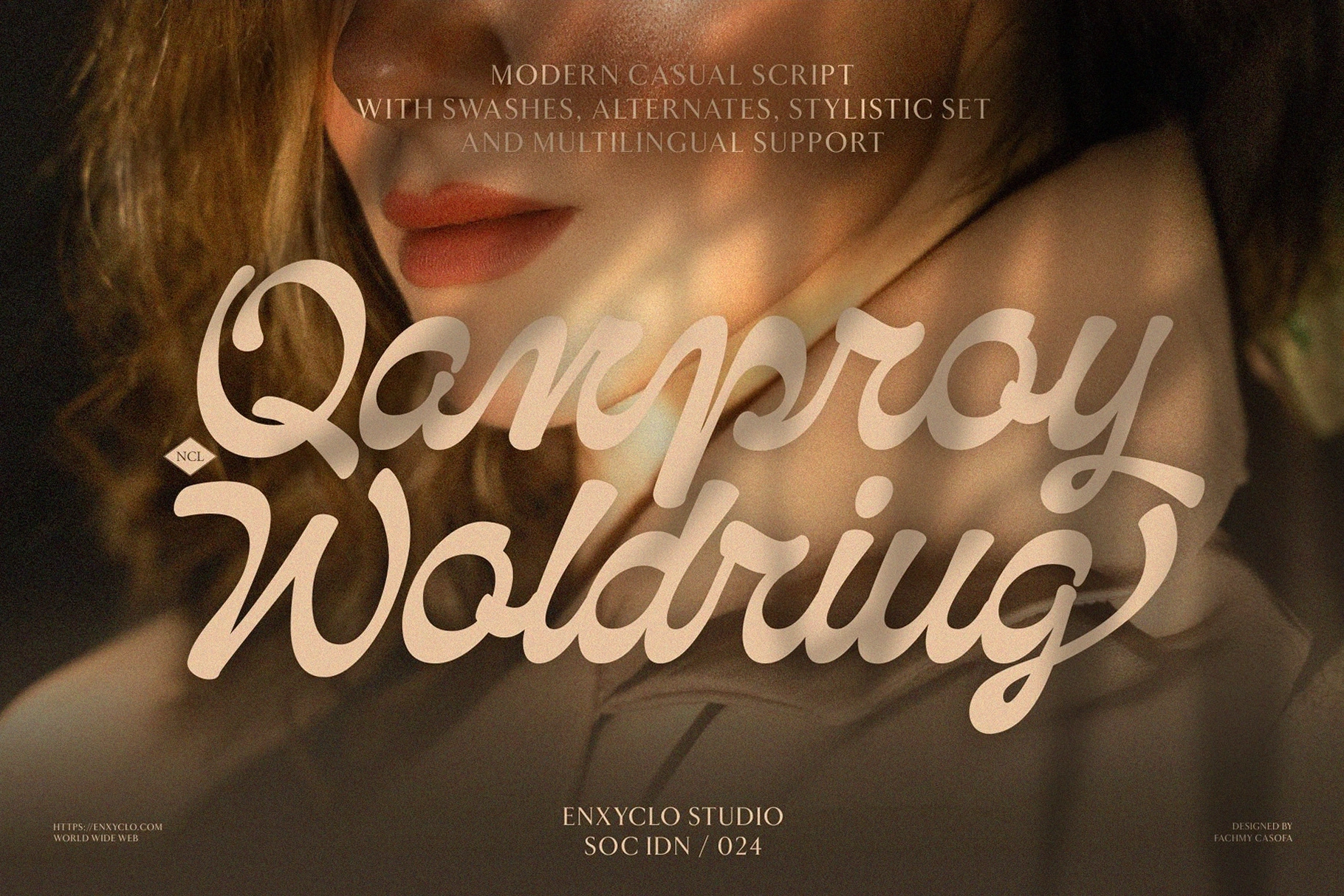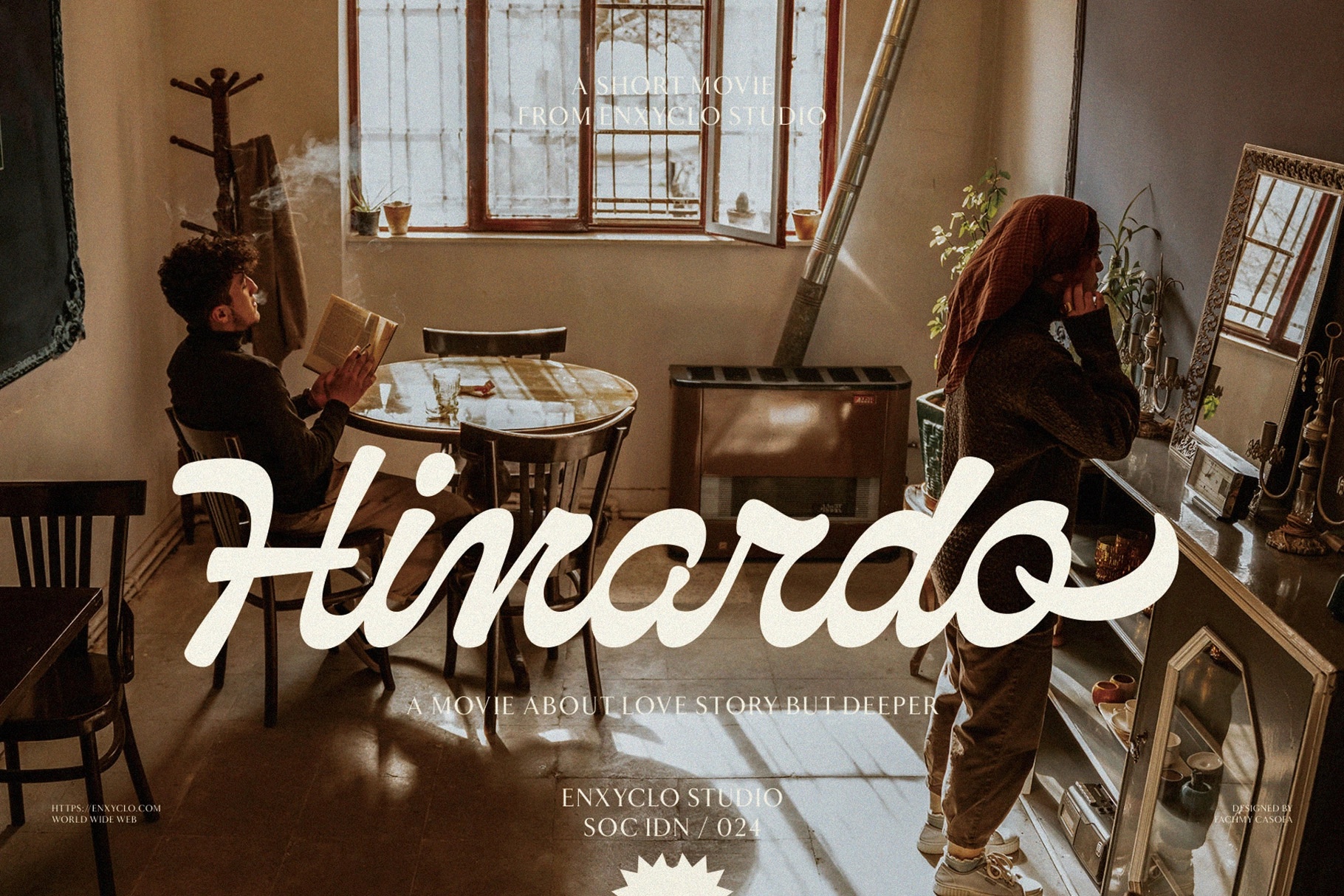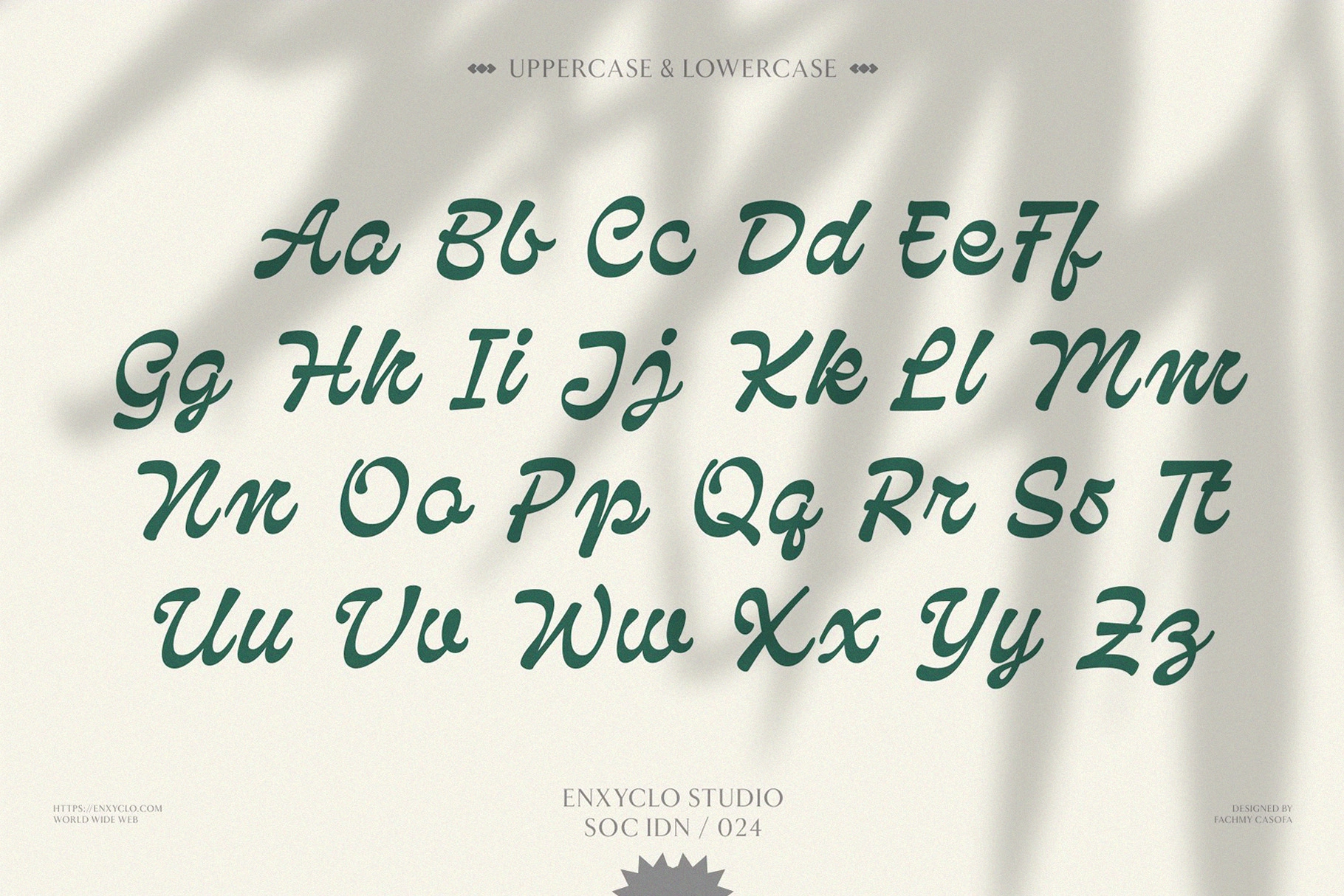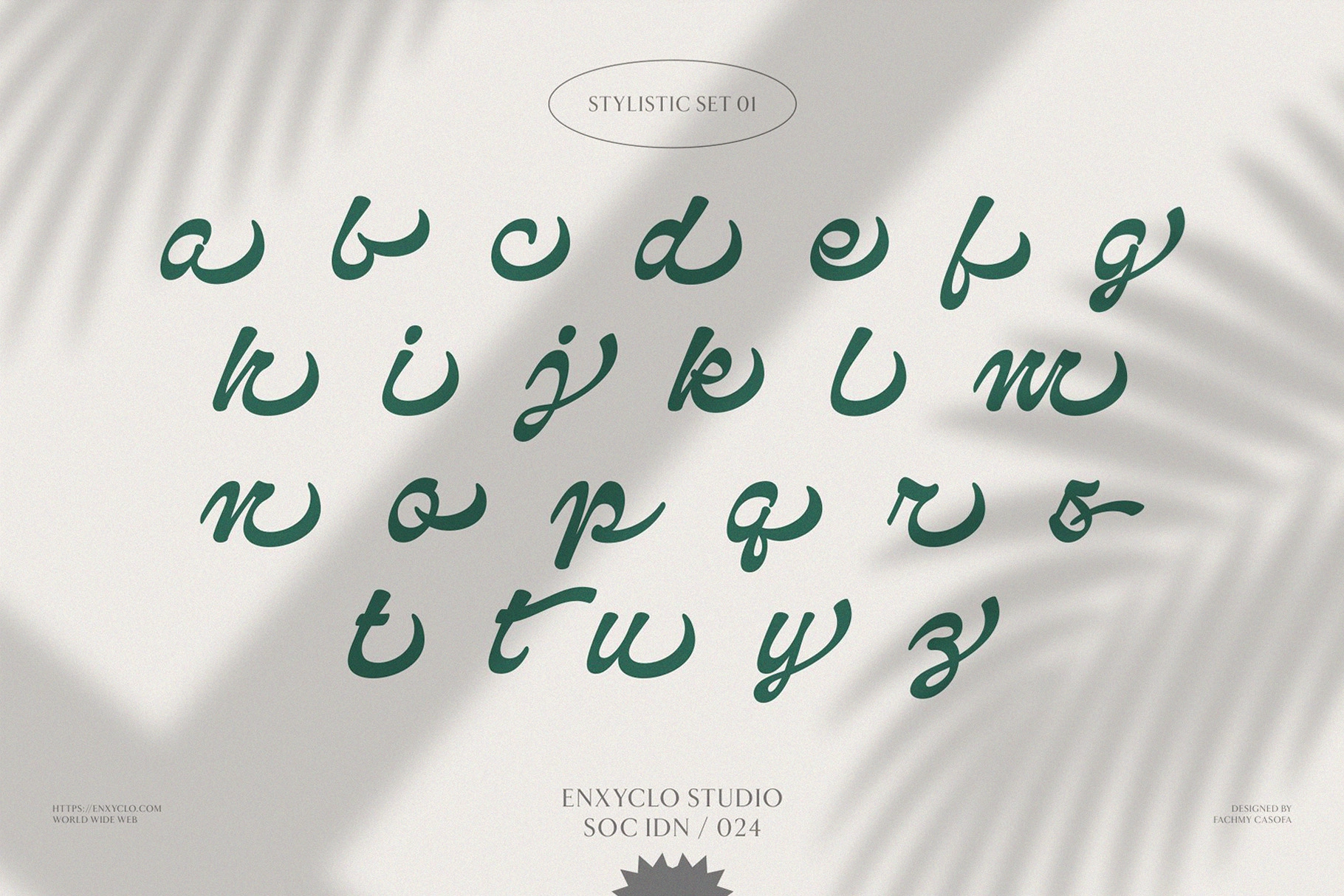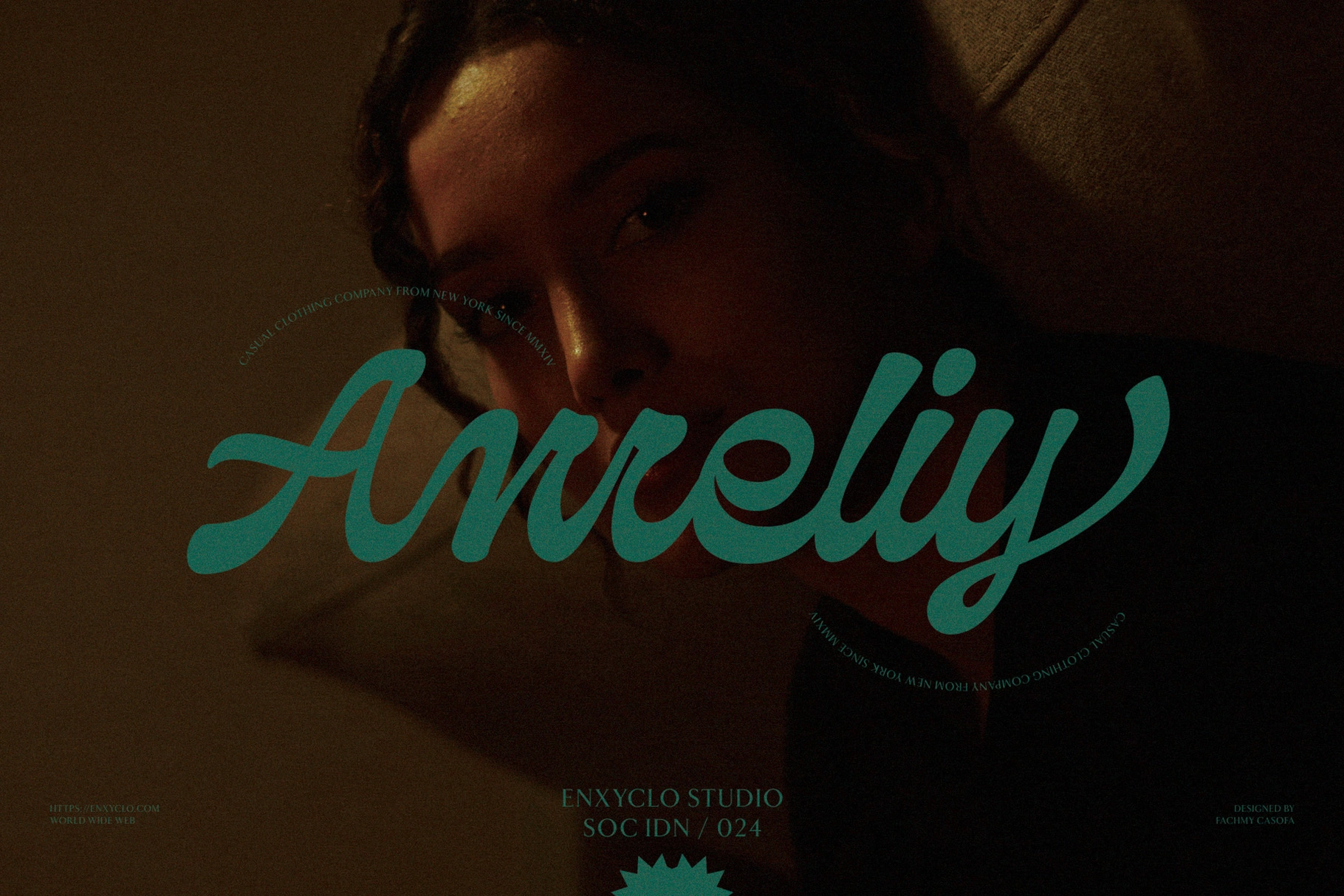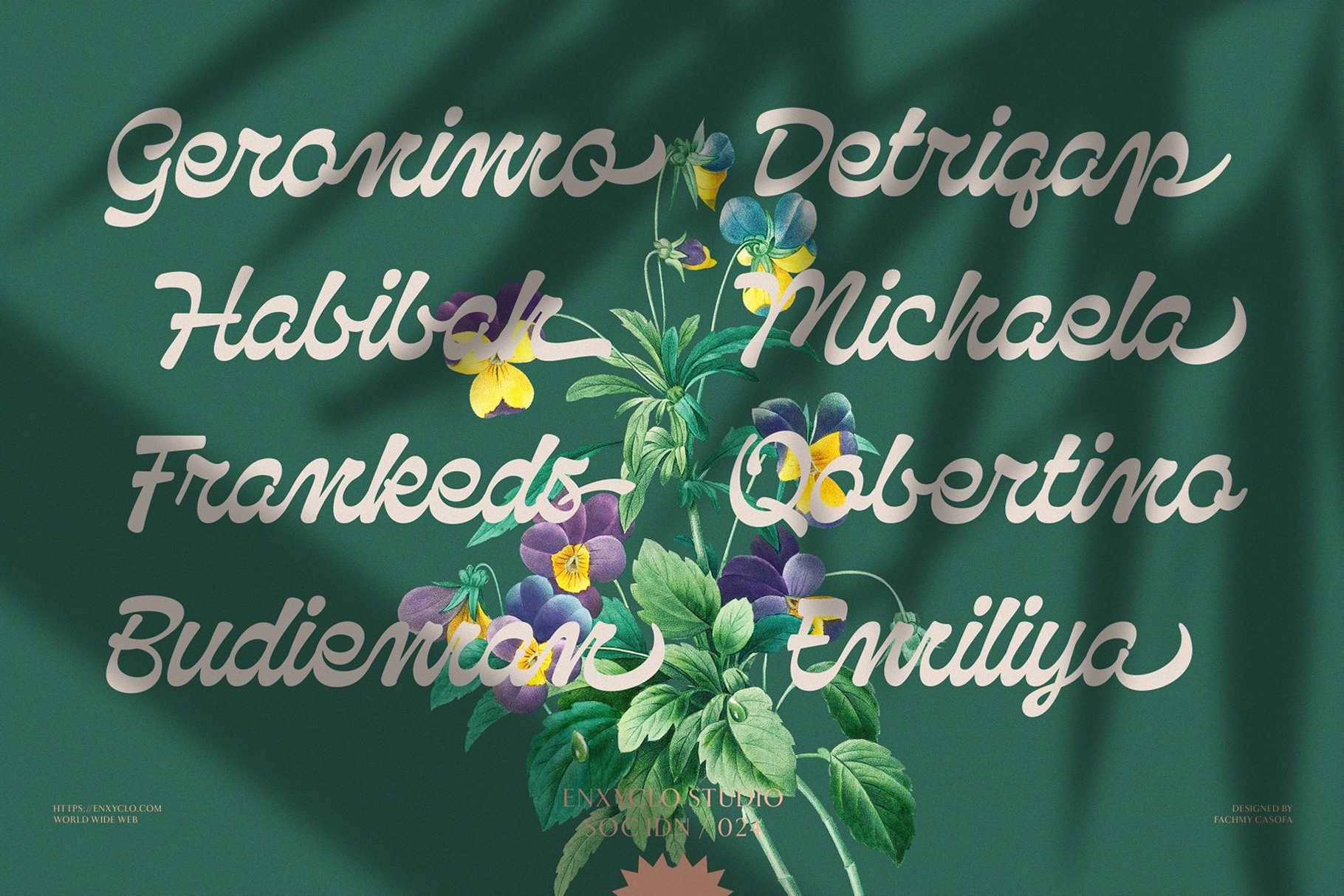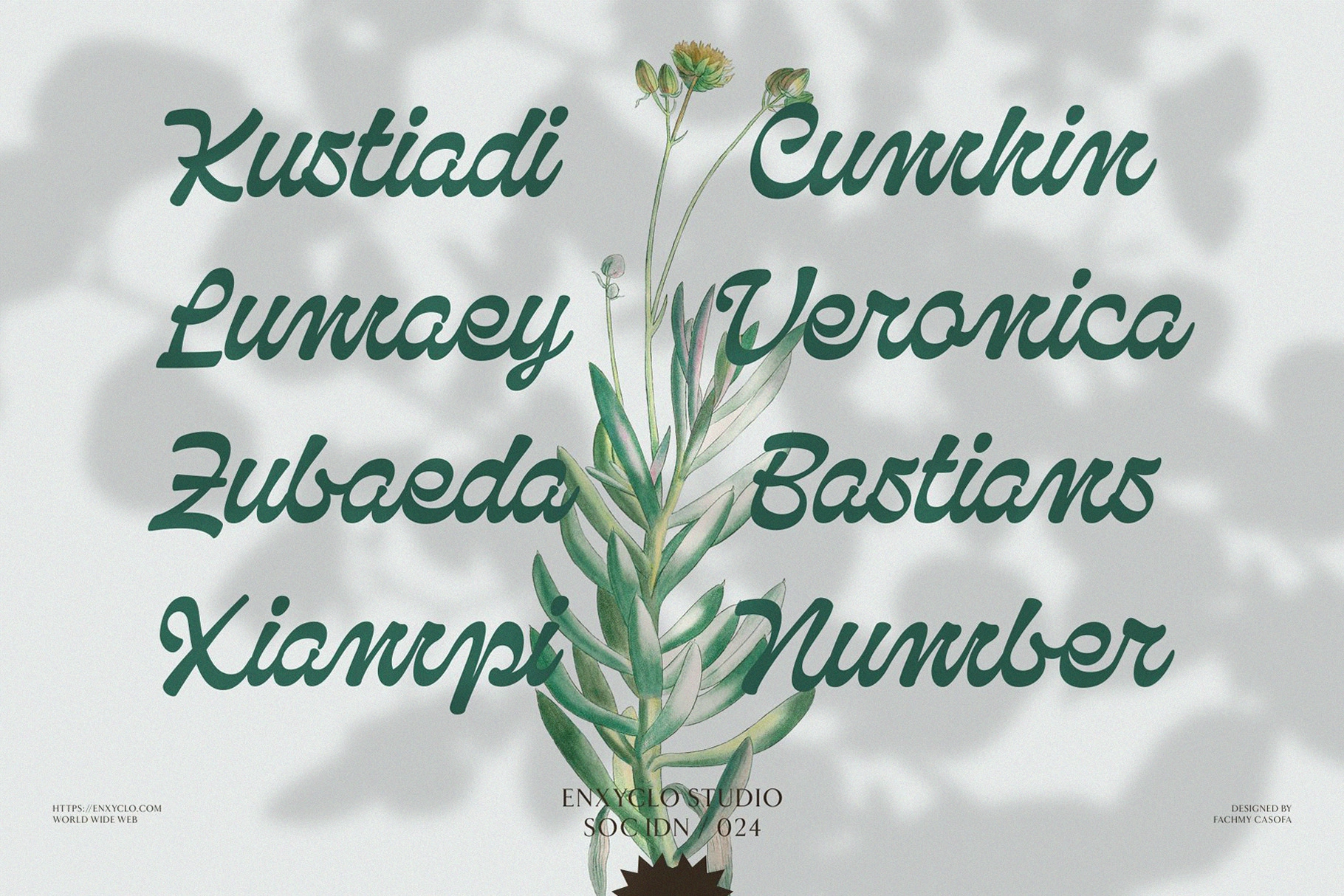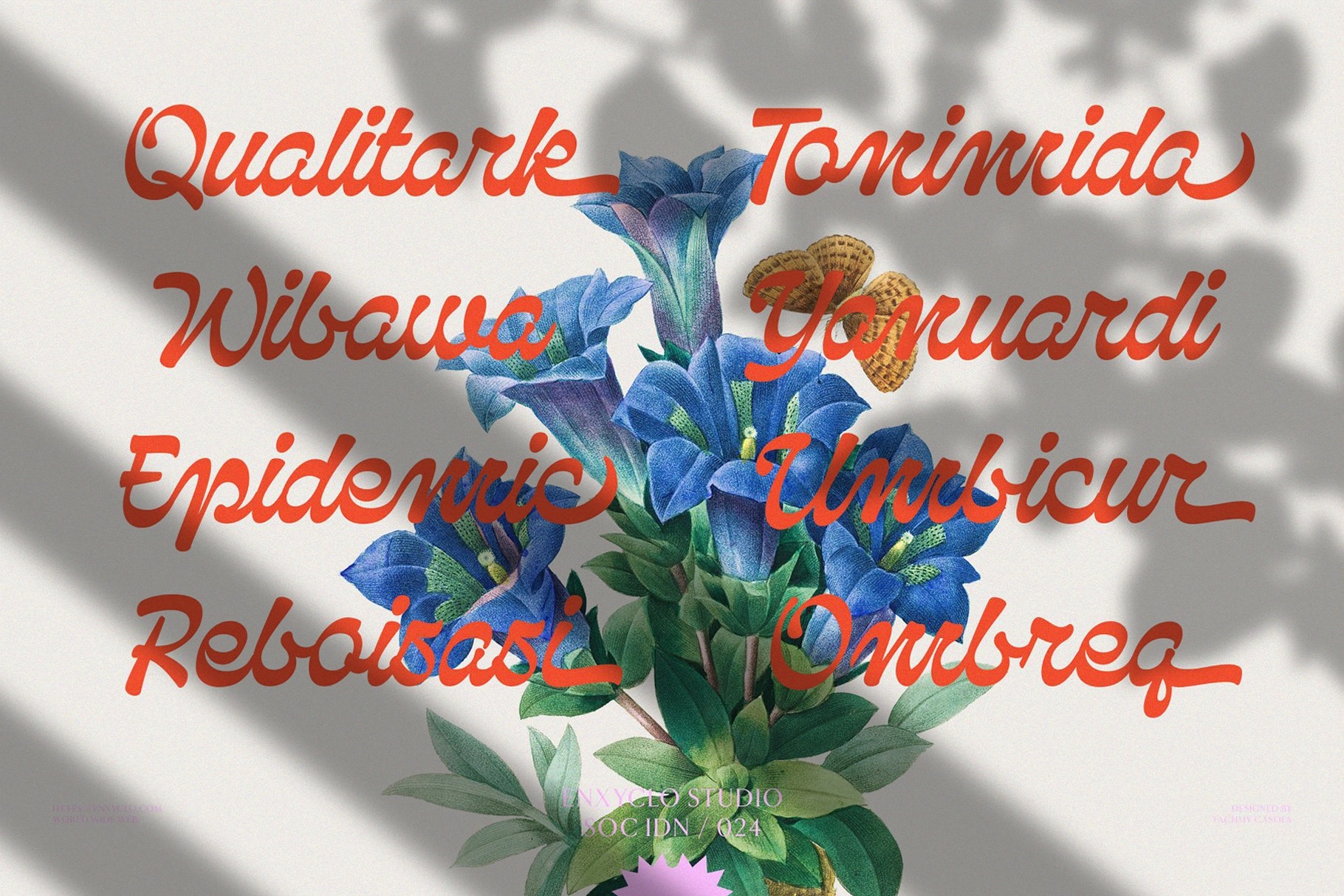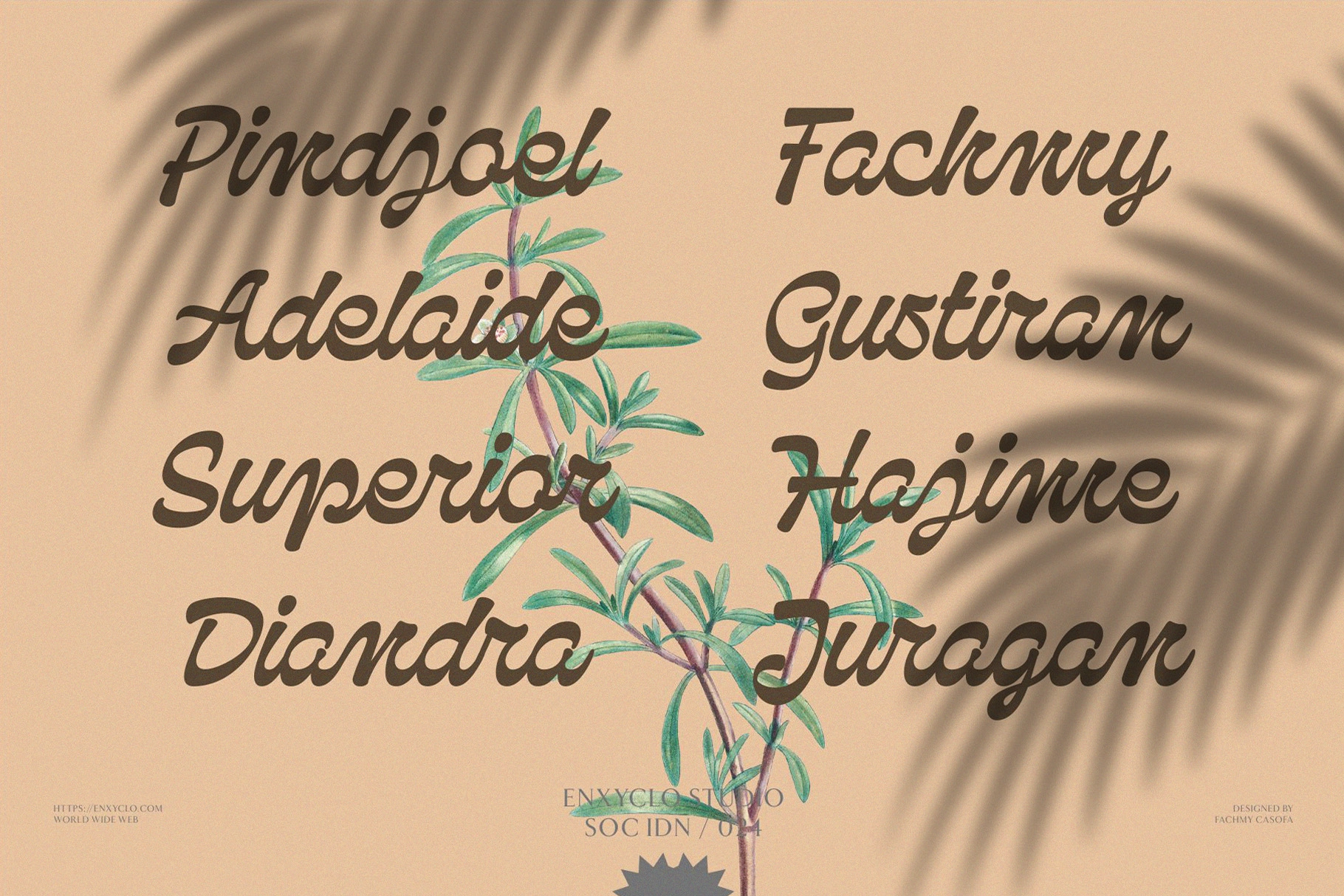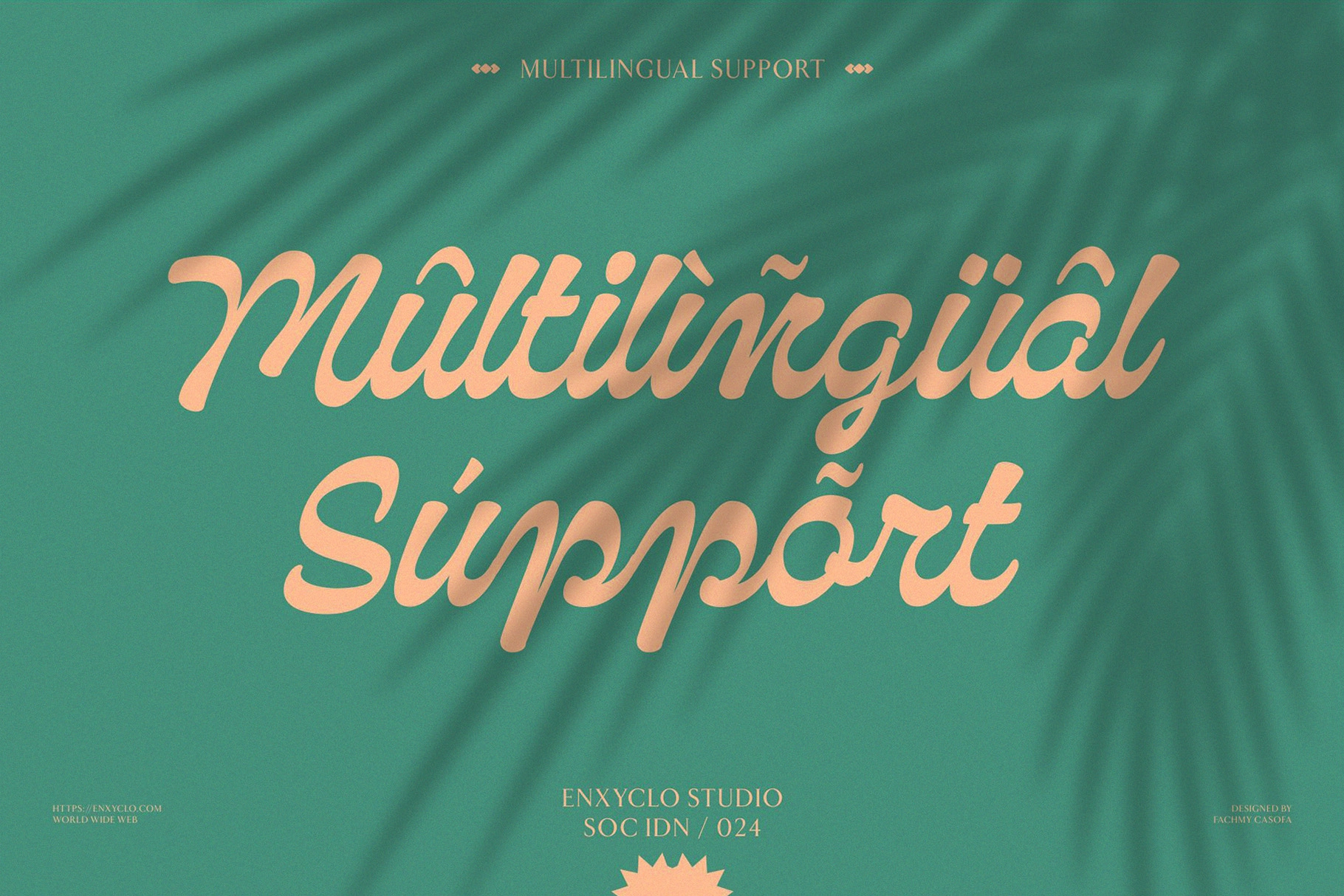
Qanproy Woldriug - Swash Script Font
NCL Qanproy Woldriug
Qanproy Woldriug – Swash Script Font is a modern casual script typeface designed with elegant flowing strokes and expressive swashes. Its smooth curves and stylish letterforms create a refined handwritten look that feels both contemporary and timeless. The balanced rhythm and natural movement of the characters make it ideal for eye-catching headlines and elegant branding.
Crafted to shine in large display sizes while remaining readable in smaller text, Qanproy Woldriug brings sophistication and personality to any design. Perfect for logos, editorial layouts, digital ads, packaging, and social media graphics, this script font adds a graceful and premium touch to creative projects.
- Stylistic Set 1–2
- Ideal for Logos, Branding, Headlines, Editorial & Packaging Design